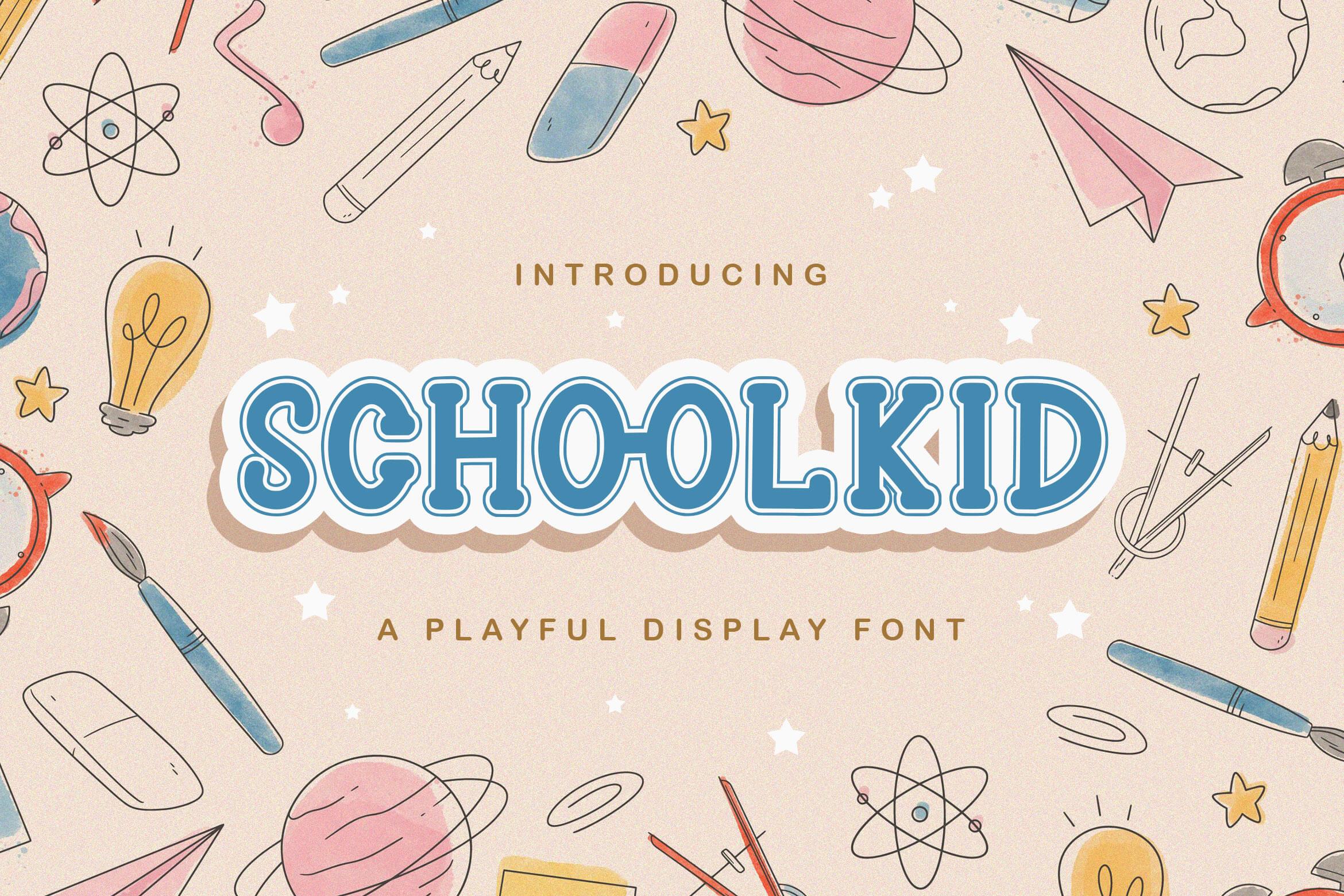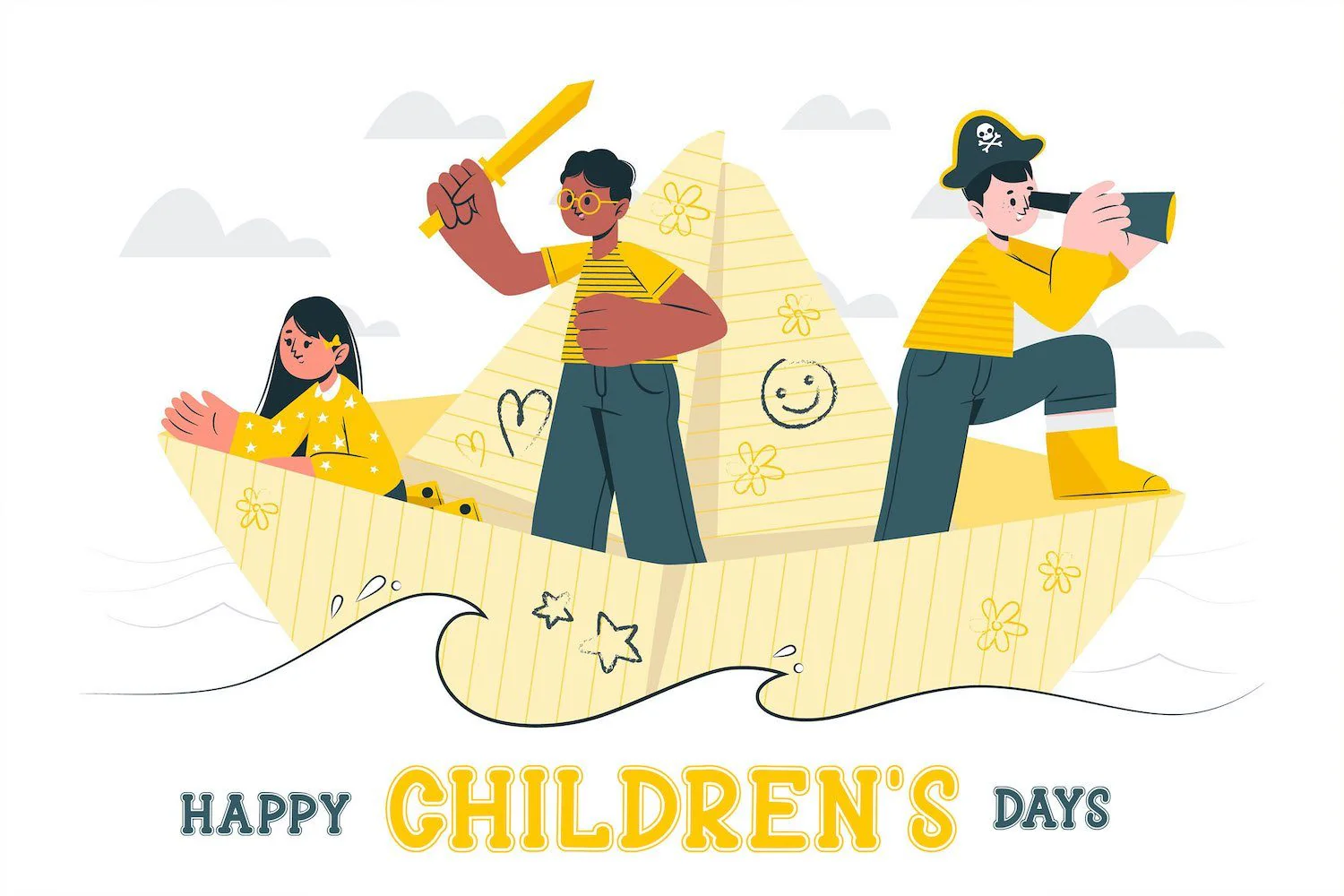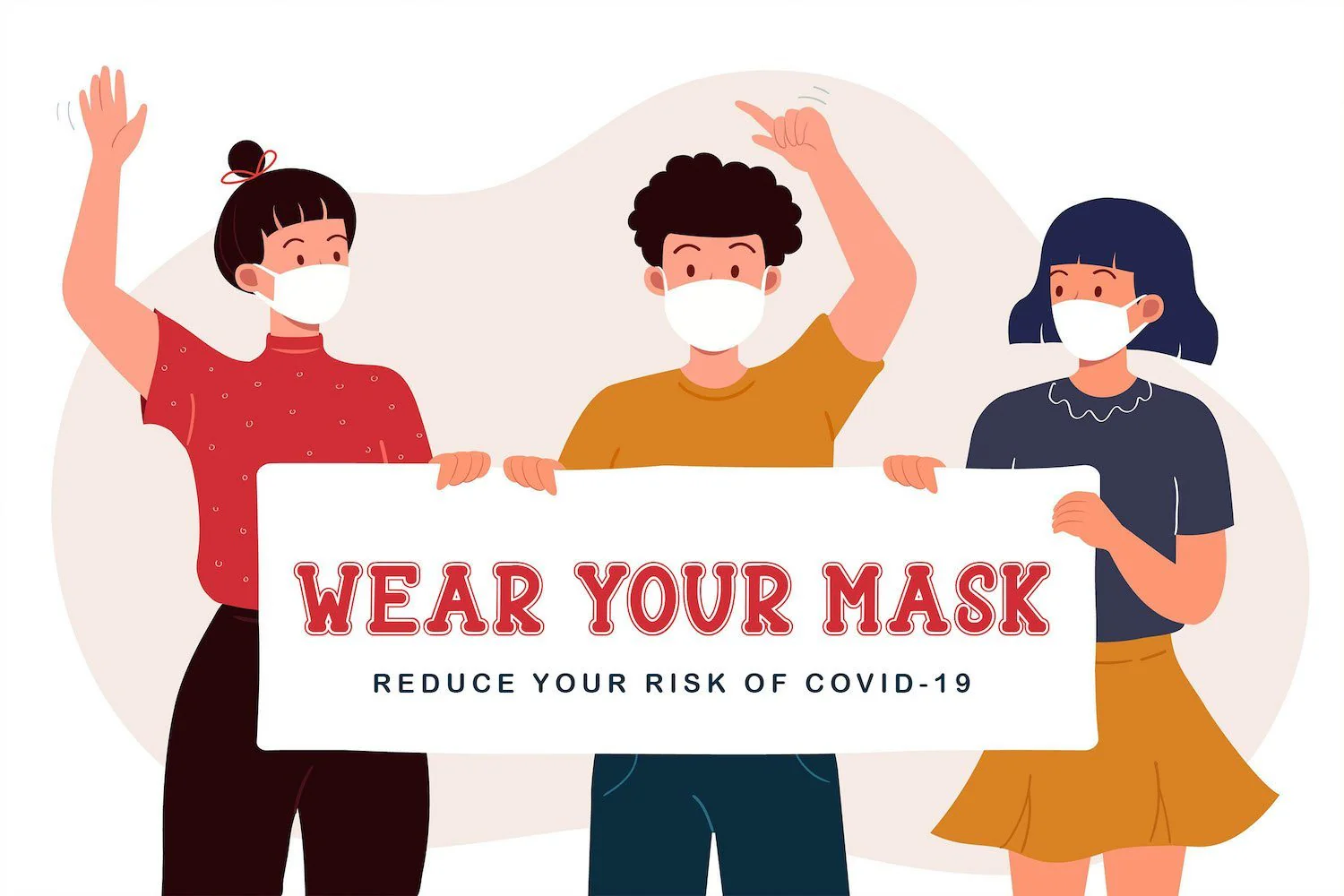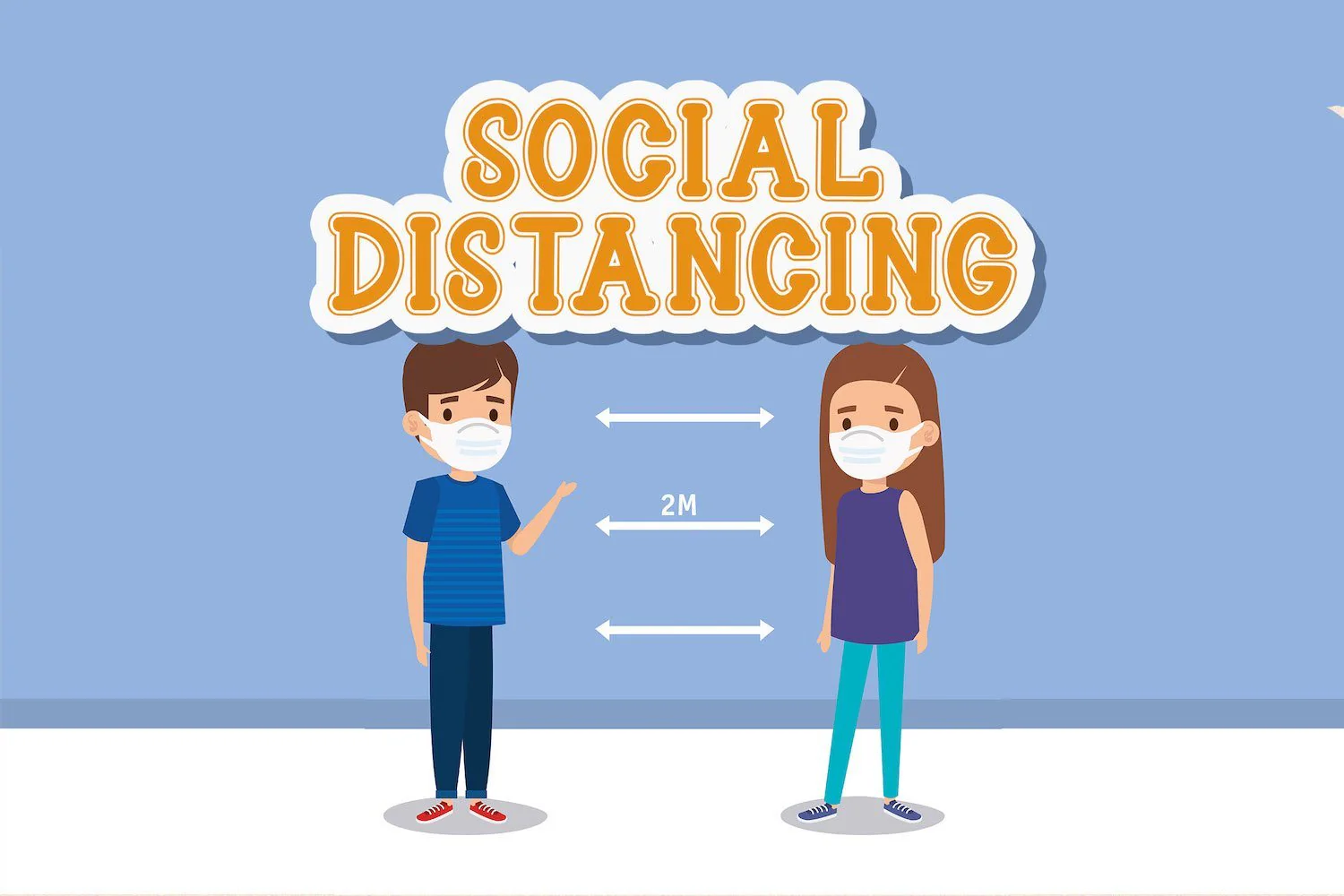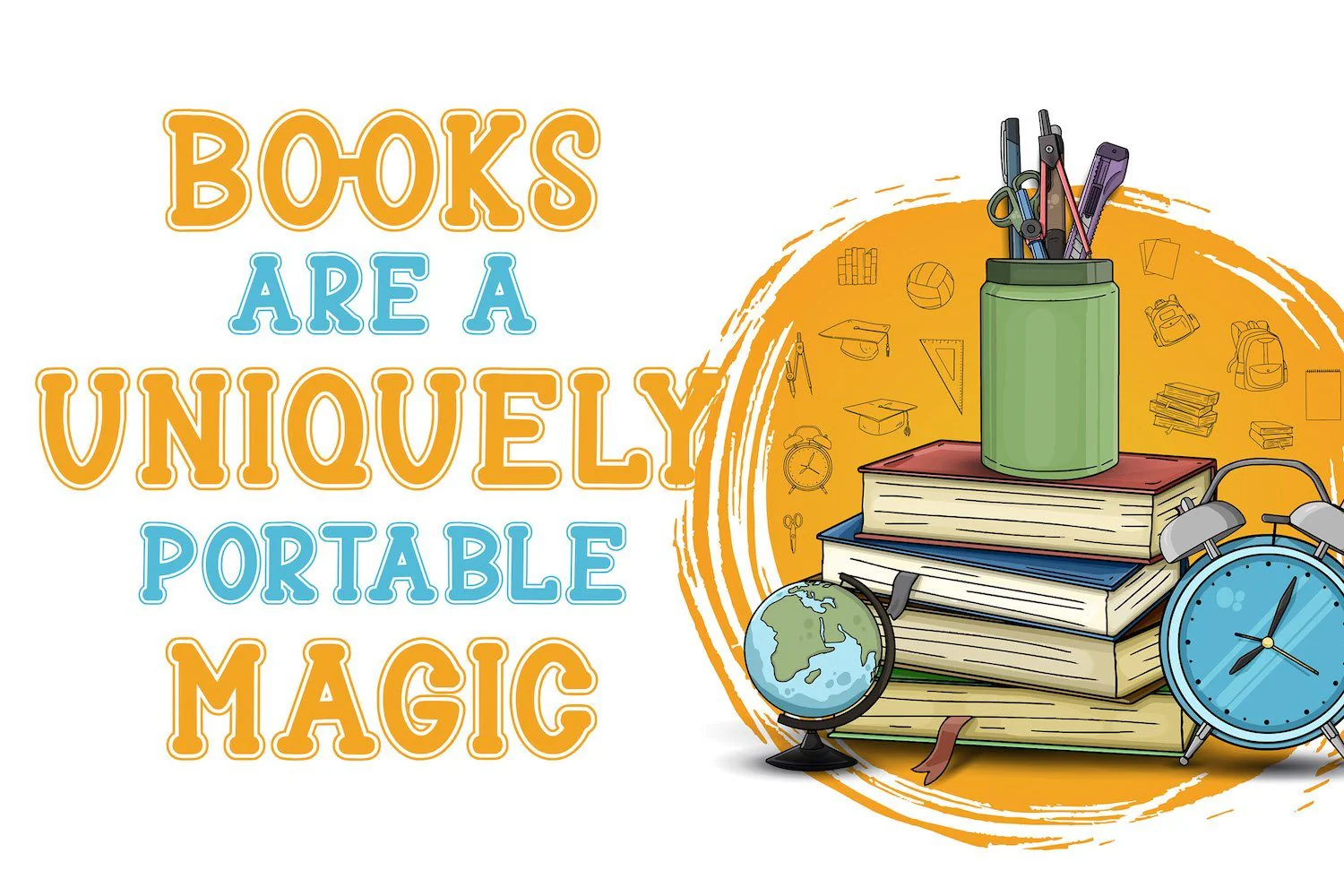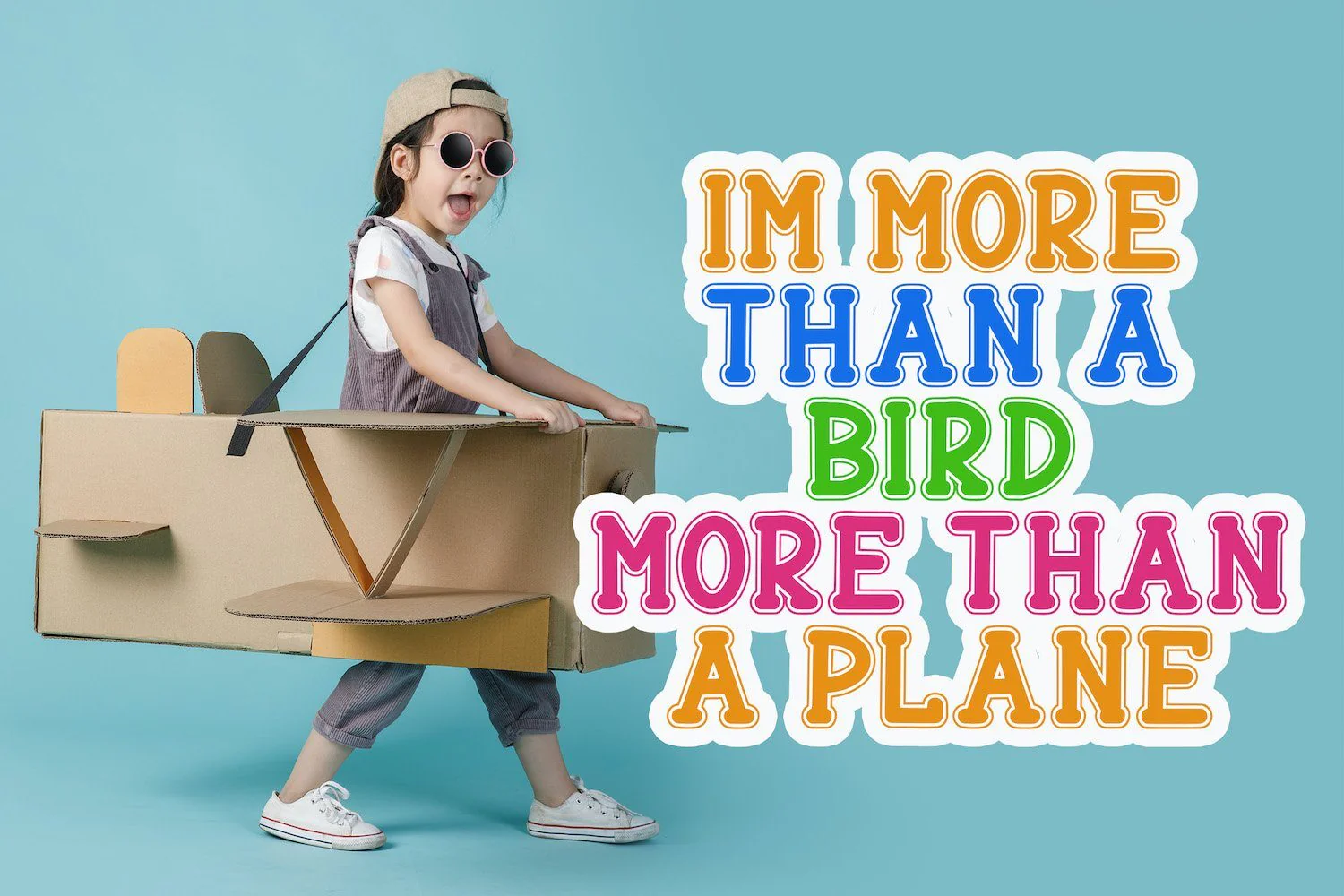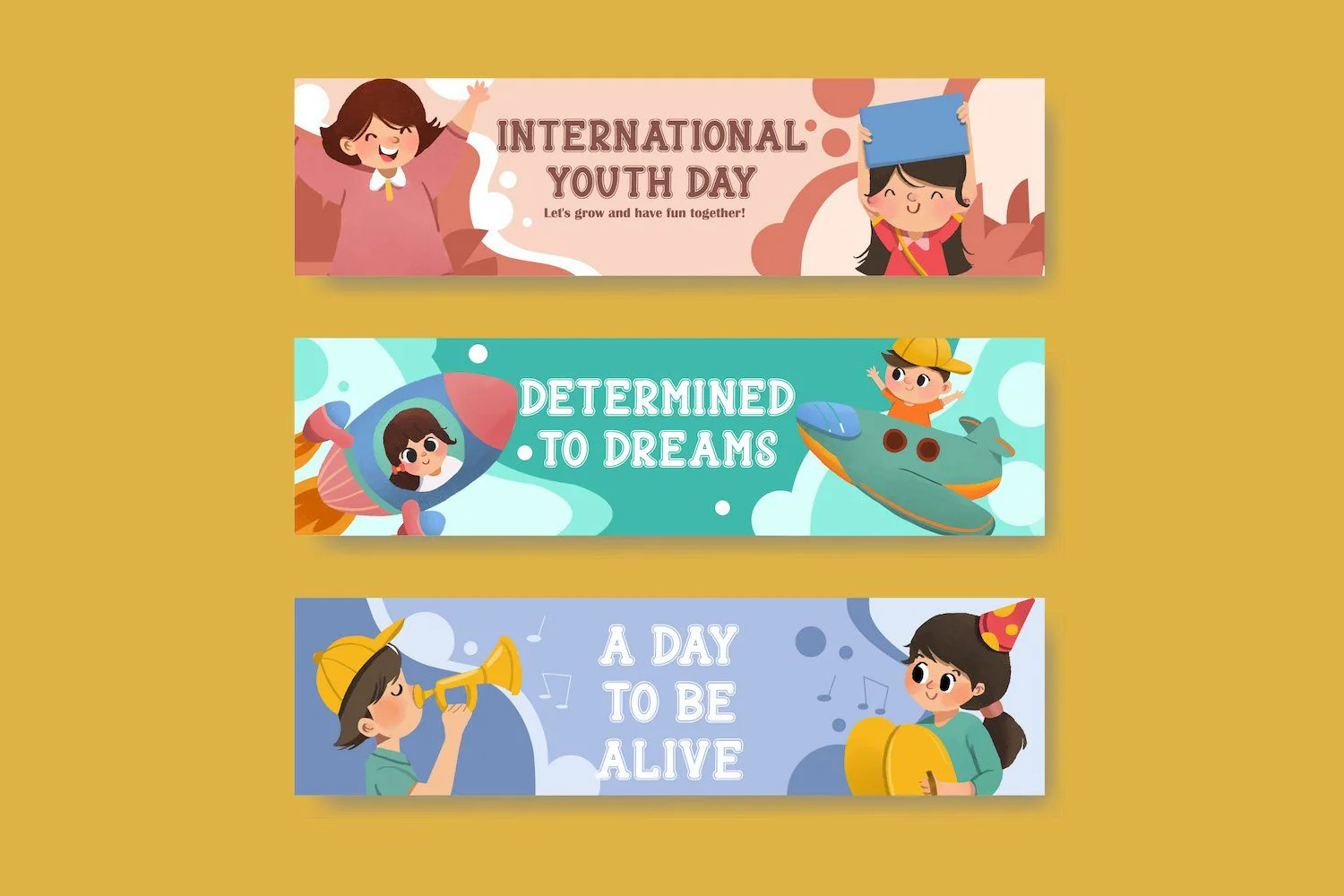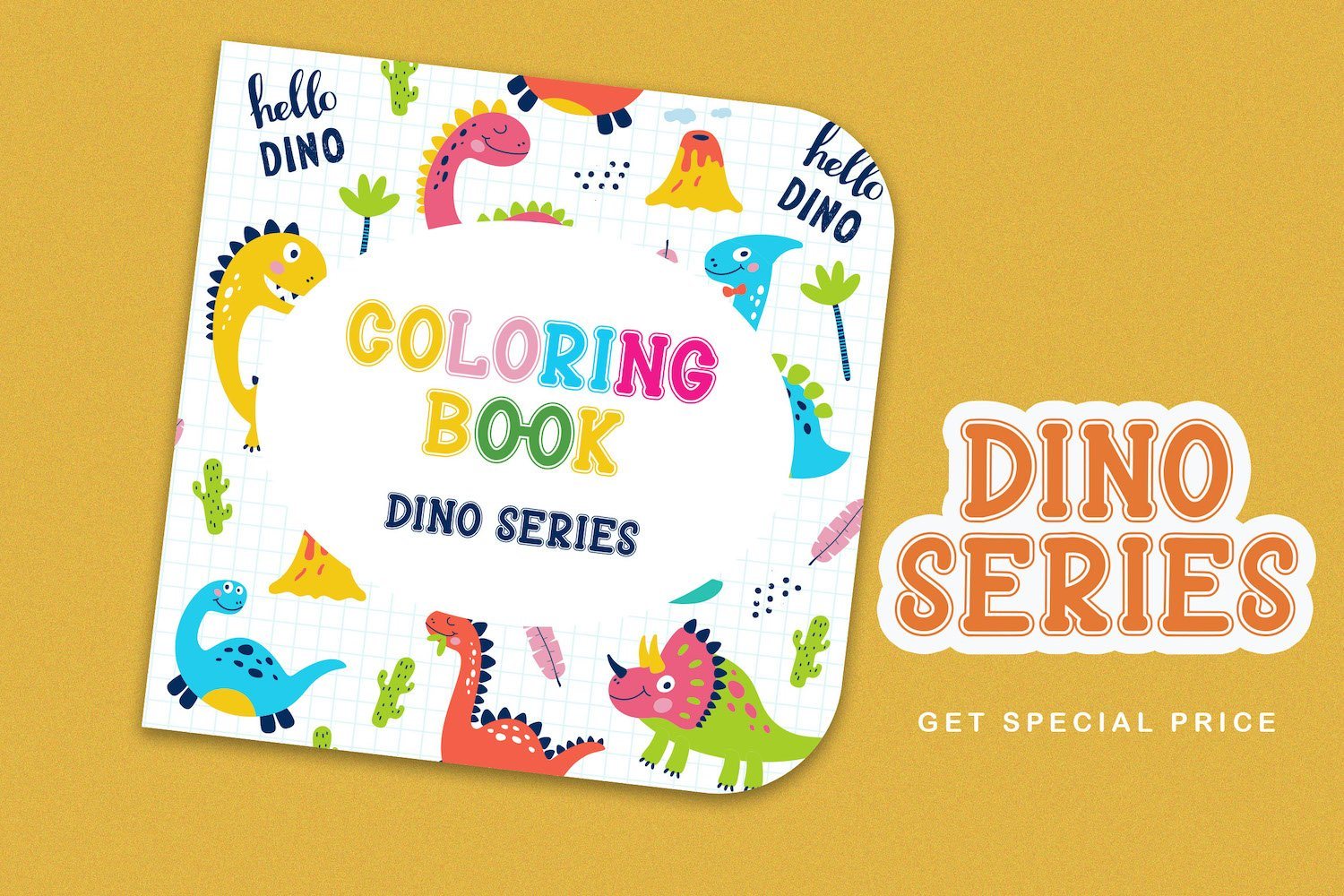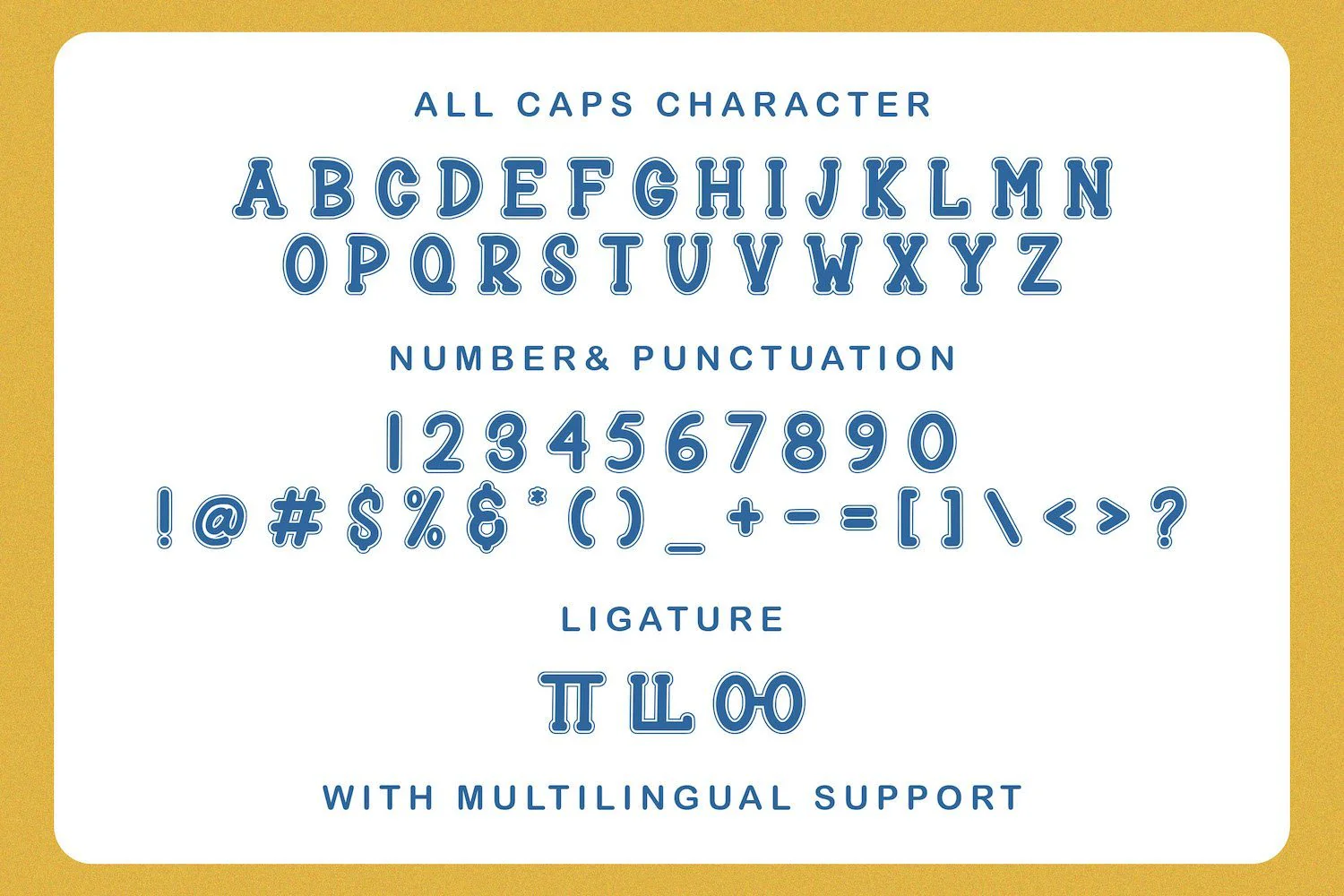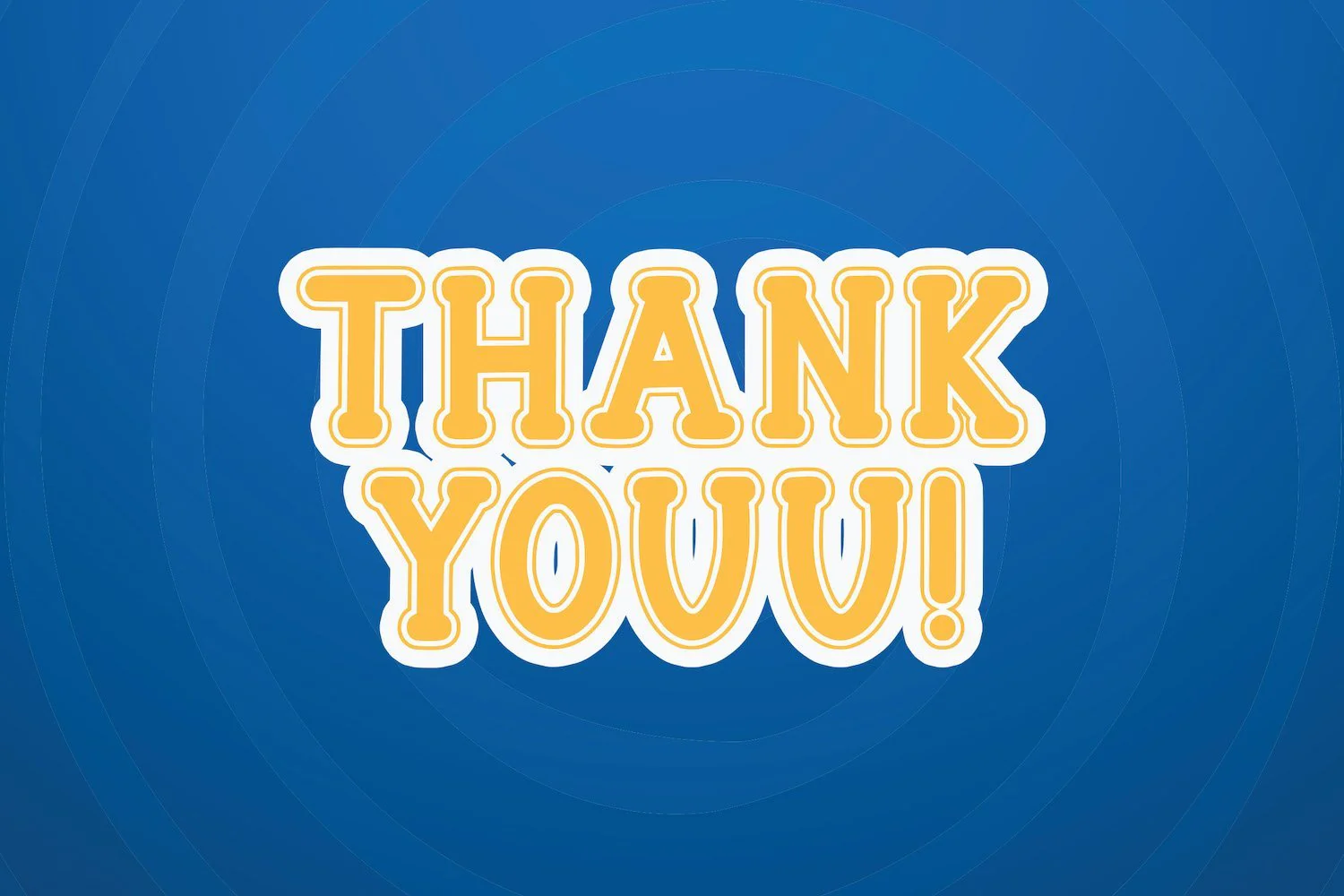
Schoolkid - Playful Display Font
Introducing Schoolkid - Playful Display Font
Schoolkid is a fun display font. Playful and fresh, this font will be a hit for each of your children or school projects!